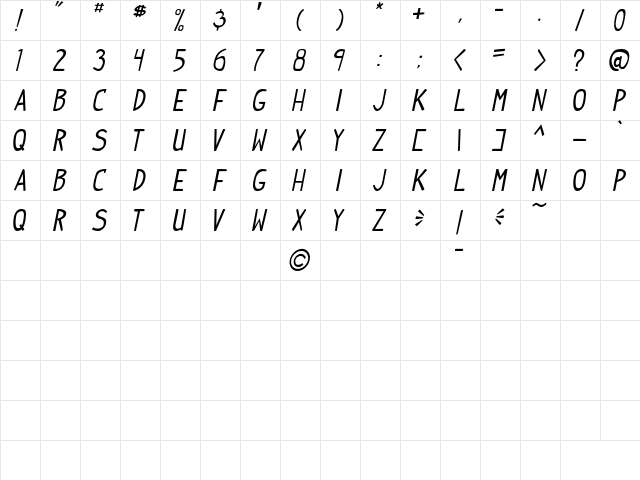
Indy Pimp Italic
| Designer | Andeh Pinkard |
Design Context for Indy Pimp Typeface
Indy Pimp is a composed and adaptable typeface that performs quietly and consistently across a wide range of design contexts. The dynamic lean of this cut emphasises speed and emphasis in any layout.
Pro Tip: Use Indy Pimp for emphasis, pull quotes, and subheadings where its slanted energy can add rhythm to the layout.